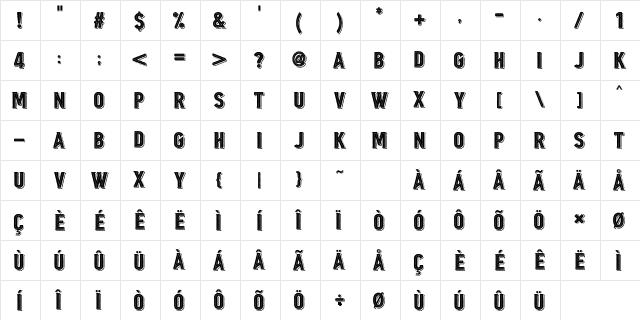
Borgens Burlesque Regular
Design Context for Borgens Burlesque Typeface
Borgens Burlesque offers clean, dependable letterforms without strong stylistic allegiance, making it a practical choice for designers who need flexibility.